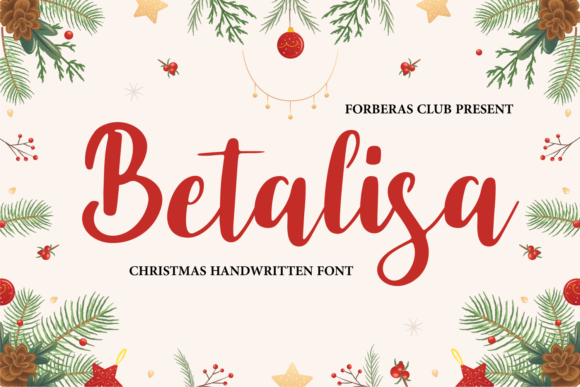
**Betalisa: The Enchanting Script Font That Will Make Your Words Dance**
Step into a world of elegance and grace with Betalisa, the captivating script font that will transform your words into a symphony of delight. This meticulously crafted font captures the essence of romance and charm, inviting you to express your heartfelt emotions in a captivating visual language.
Indulge in the fluidity of Betalisa's curves, which effortlessly mimic the graceful strokes of calligraphy. Each letter is a masterpiece, designed to flow seamlessly, creating an irresistible rhythm that draws the eye and captivates the senses. This font is not merely a collection of characters; it is an artistic journey that will elevate your creative expression to new heights.
Whether you're crafting enchanting birthday cards, sending heartfelt invitations, or creating stunning banners, Betalisa will add an unparalleled touch of sophistication to your designs. Its versatility extends to stationery, marketing materials, and more, making it the perfect choice for any occasion that calls for a touch of elegance and charm.
Say goodbye to ordinary fonts and embrace the magic of Betalisa. Let its enchanting strokes ignite your imagination and create designs that will leave a lasting impression. With every word you write in Betalisa, you're not just communicating a message; you're weaving a spell that will captivate hearts and minds.
**Key Features:**
* Exquisitely cursive handwritten style
* Embodies authenticity and charm
* Perfect for invitations, stationery, and marketing materials
**Benefits:**
* Instantly adds a touch of elegance to your designs
* Captivates the senses with its graceful curves and fluid motion
* Makes your words dance on the page, creating a memorable impact